2 Google Fonts Similar to Calibri
Calibri is a sans-serif font designed by Lucas De Groot in 2002 and later released in 2007. It went on it's way to replace the standard font in Microsoft Word, Powerpoint, and Excel. It is described as a warm font with a soft character.
This font is very legible and approachable. It makes for a great font for body paragraph text and headlines.
Finding another font like Calibri can be difficult because of some of the unique features that this font offers. The main one is the lowercase "g".
With that being said, I was able to find a few good look a likes that will work.
What Google Fonts are Similar to Calibri?
The best fonts to use that look like Calibri are:
- Open Sans
- Fira Sans
Lets dive into each one.
Open Sans
Open Sans is going to be one of the better fonts that matches Calibri. It matches the unique lower case "g" well. It also matches the "j", "t", and the "a".
One of the differences you can easily spot is the "y" in Open Sans features more of a tail at the end of it. While the "y" in Calibri is more of a straight line.
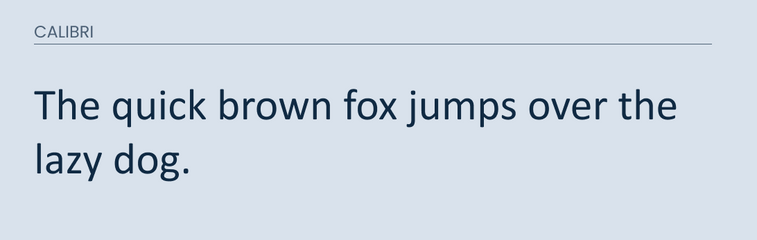
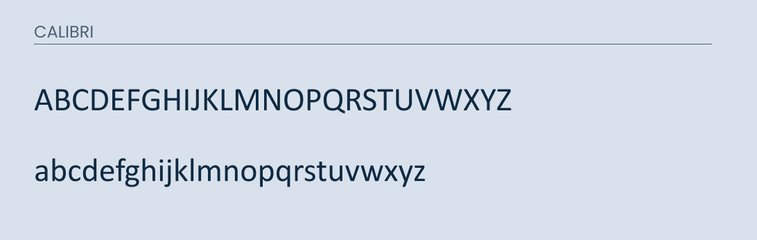
Fira Sans
Fira Sans is also another good alternative. It matches the lowercase "c" and "k" very well. I believe that these two fonts share a similar look and feel. They are both approachable and easy to read. However, there are a few differences.
It tries to match the "g", but the bottom loop is left slightly open which makes it pretty unique. As well as the "y" is more of a curved line that straight.
Conclusion
This was a difficult font to match up. Open Sans would be your best bet in trying to mimic Calibri. Fira Sans would be a good alternative if Open Sans doesn't work for whatever reason. As usually, these fonts will never actually replace the original font. However, if you are on a tight budget and need something to simple mimic it, then Open Sans would be a great option.